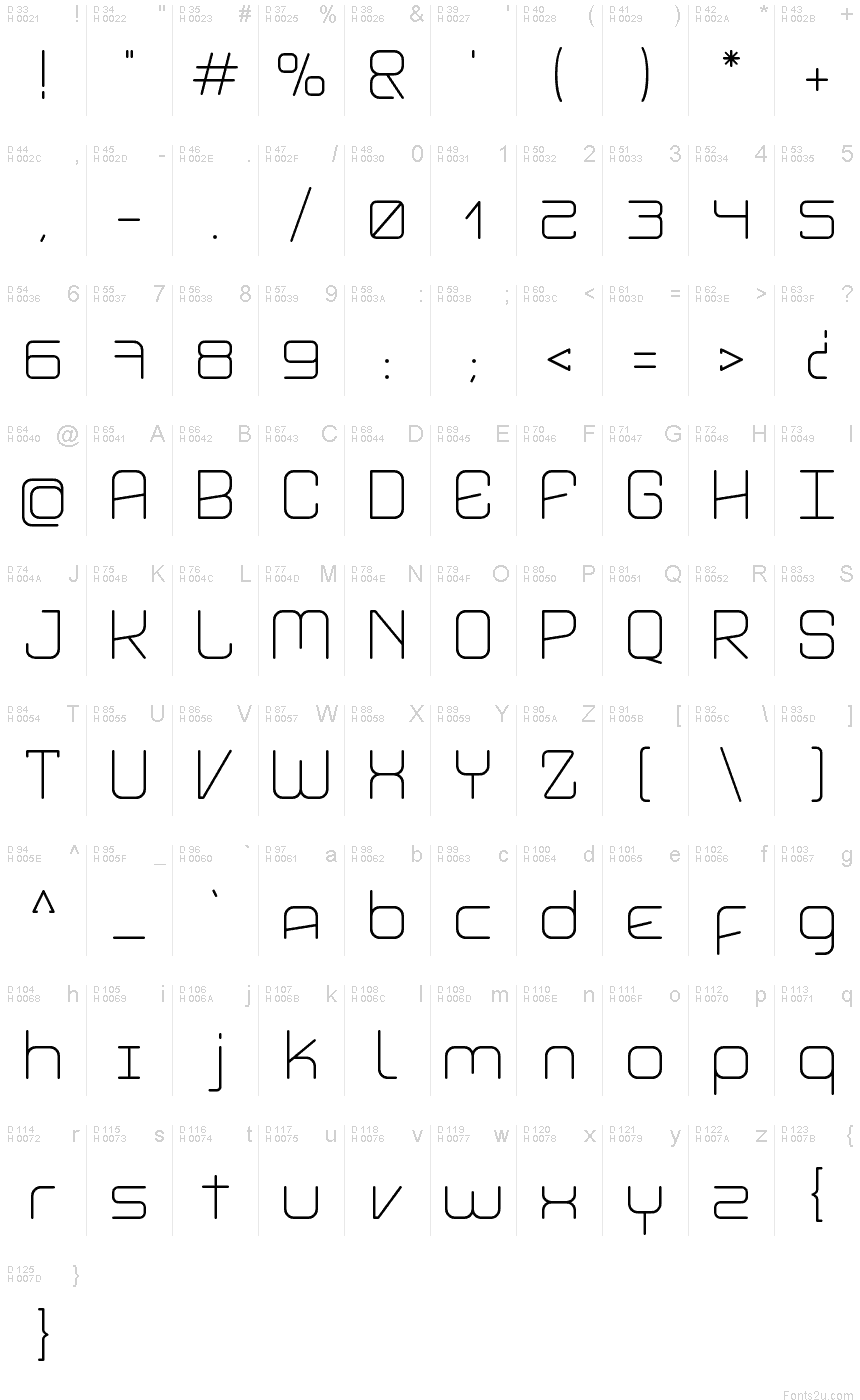
Aviddyn by Asley Cruz is a free futuristic display font with tall monoline lettering and broad rounded turns. Its open shapes and clipped joins give the alphabet a sleek technical edge. The forms stay unusually light and airy.
It is strongest in technology branding, where elongated curves suggest circuitry and precision hardware. The same streamlined drawing suits science-fiction posters, game interfaces, and electronic music artwork. Its most likely audience is designers working in indie games and forward-looking digital culture.